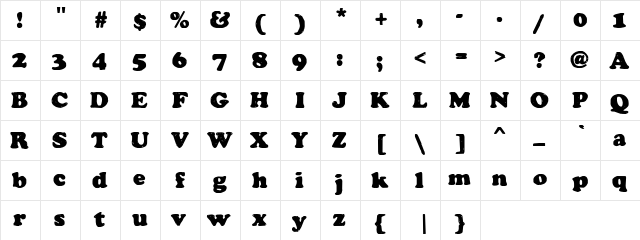
Manual Cookie Bucket Regular
Design Context for Manual Cookie Bucket Typeface
Manual Cookie Bucket is a composed and adaptable typeface that performs quietly and consistently across a wide range of design contexts.